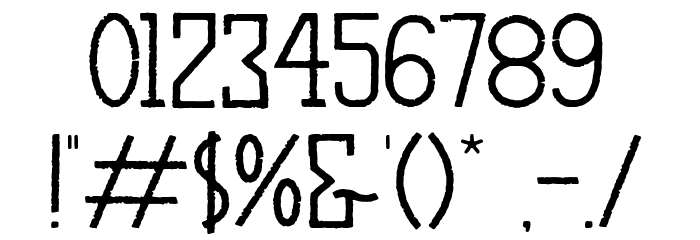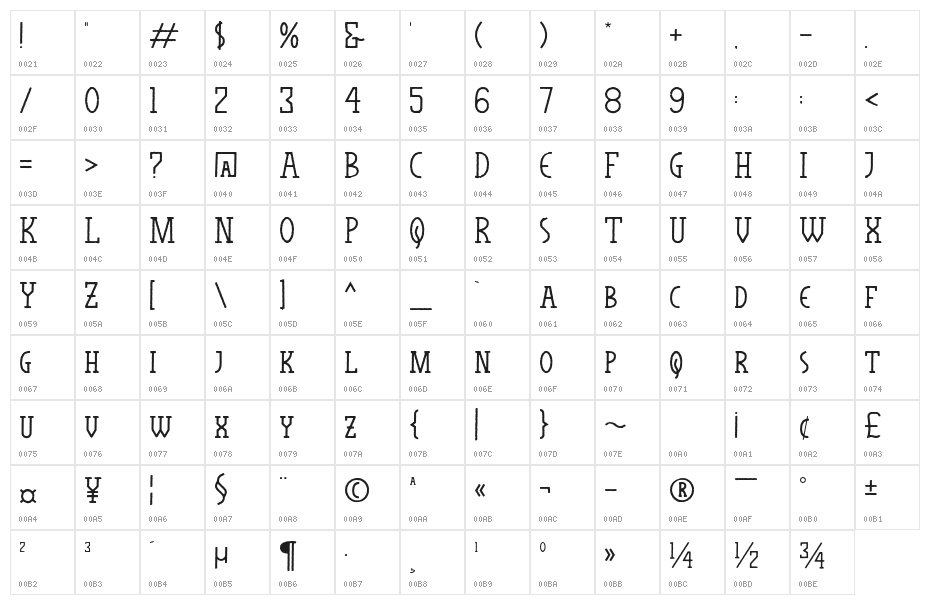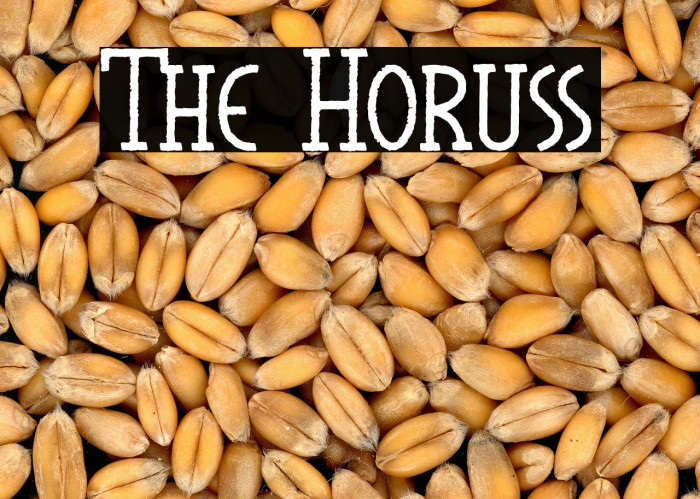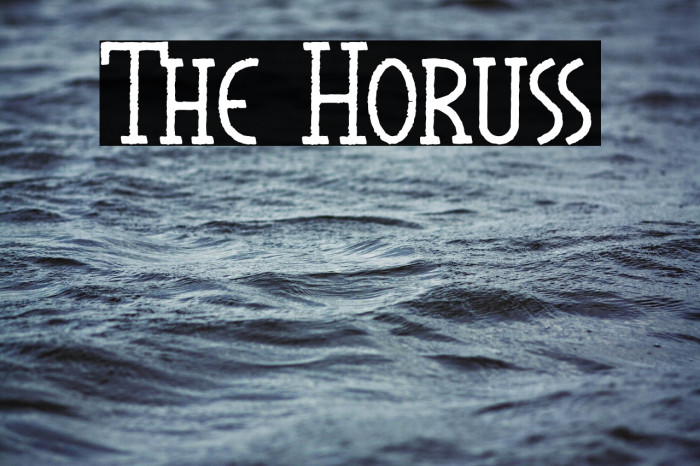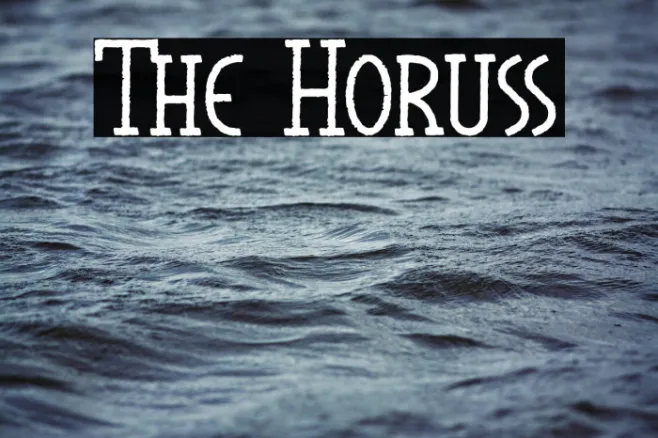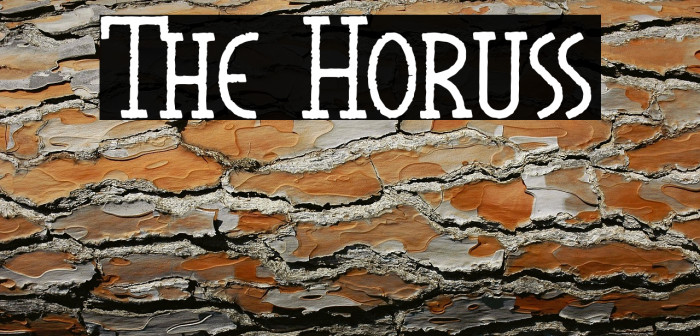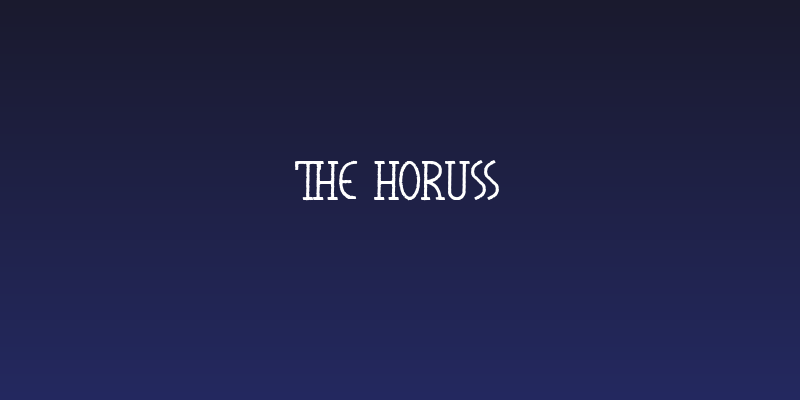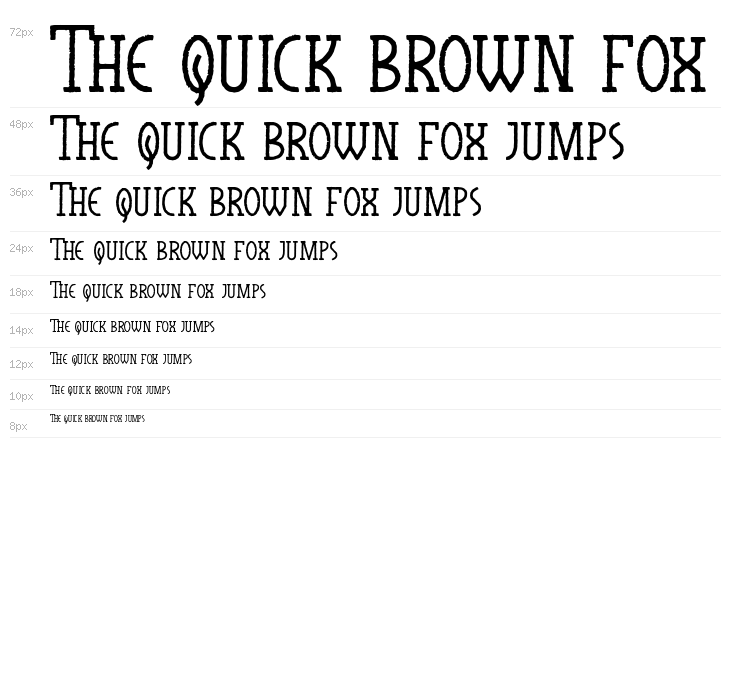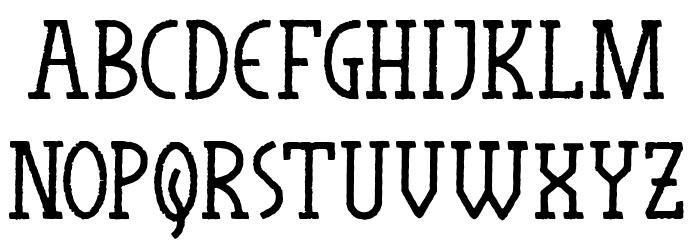
The Horuss Font
The Horuss Description
This font features a unique and artistic design with a hand-drawn appearance. The characters are tall and narrow, with a slight irregularity that adds a rustic charm. The uppercase letters have a distinct style, with some characters, like 'Q' and 'R', incorporating decorative elements. The numbers are bold and maintain the same artistic flair, making them stand out. Special characters are also included, each with its own creative twist. This font's overall look is reminiscent of ancient scripts, giving it a historical and mystical feel.